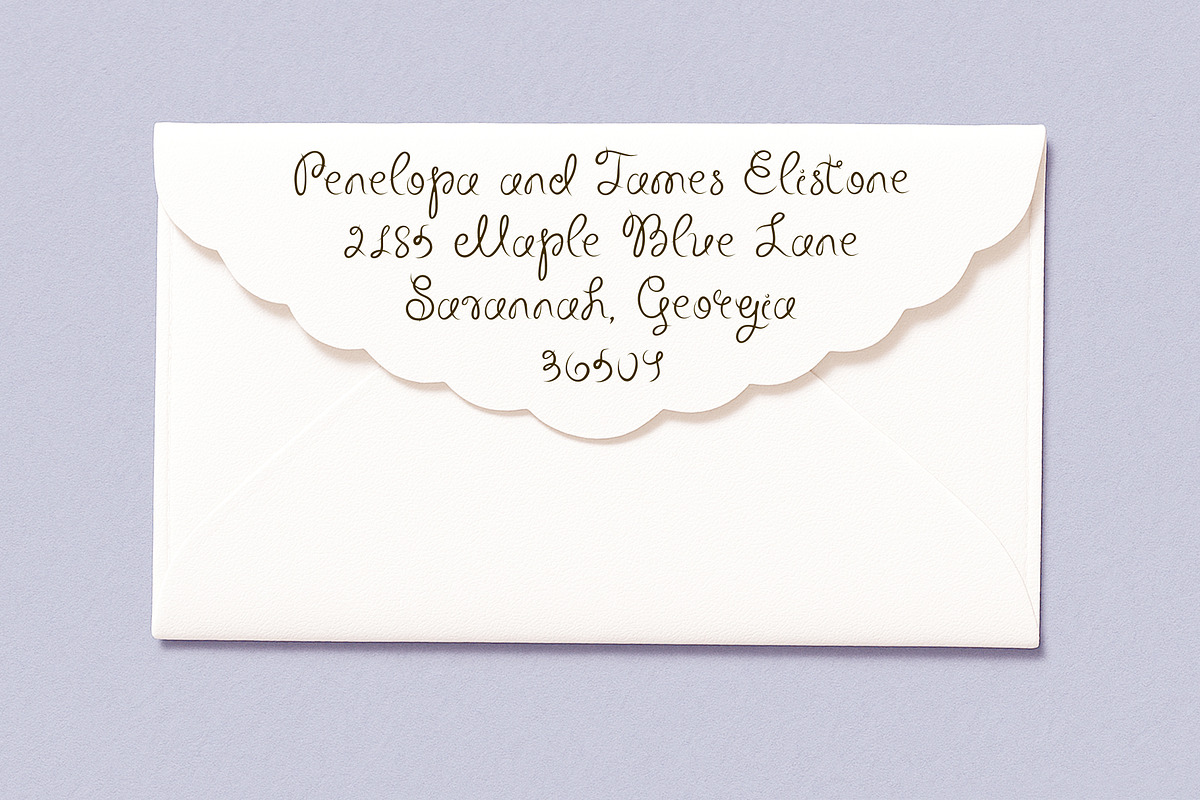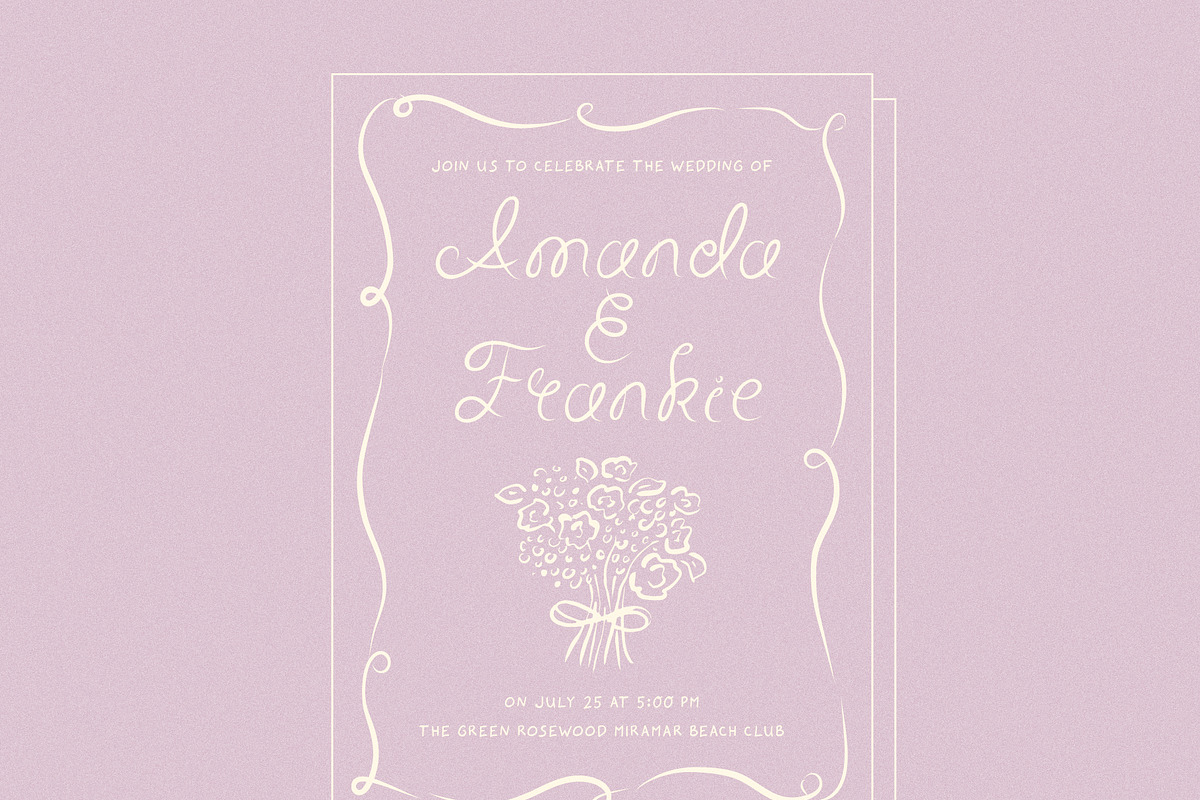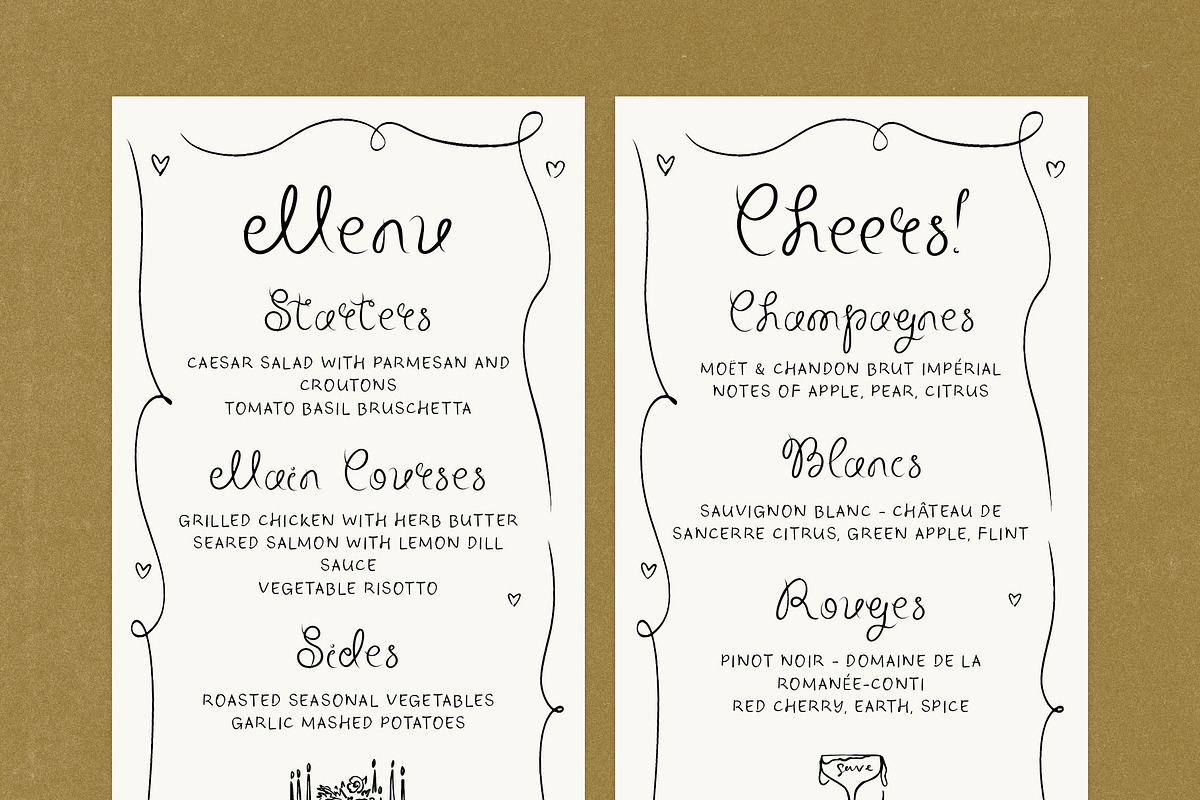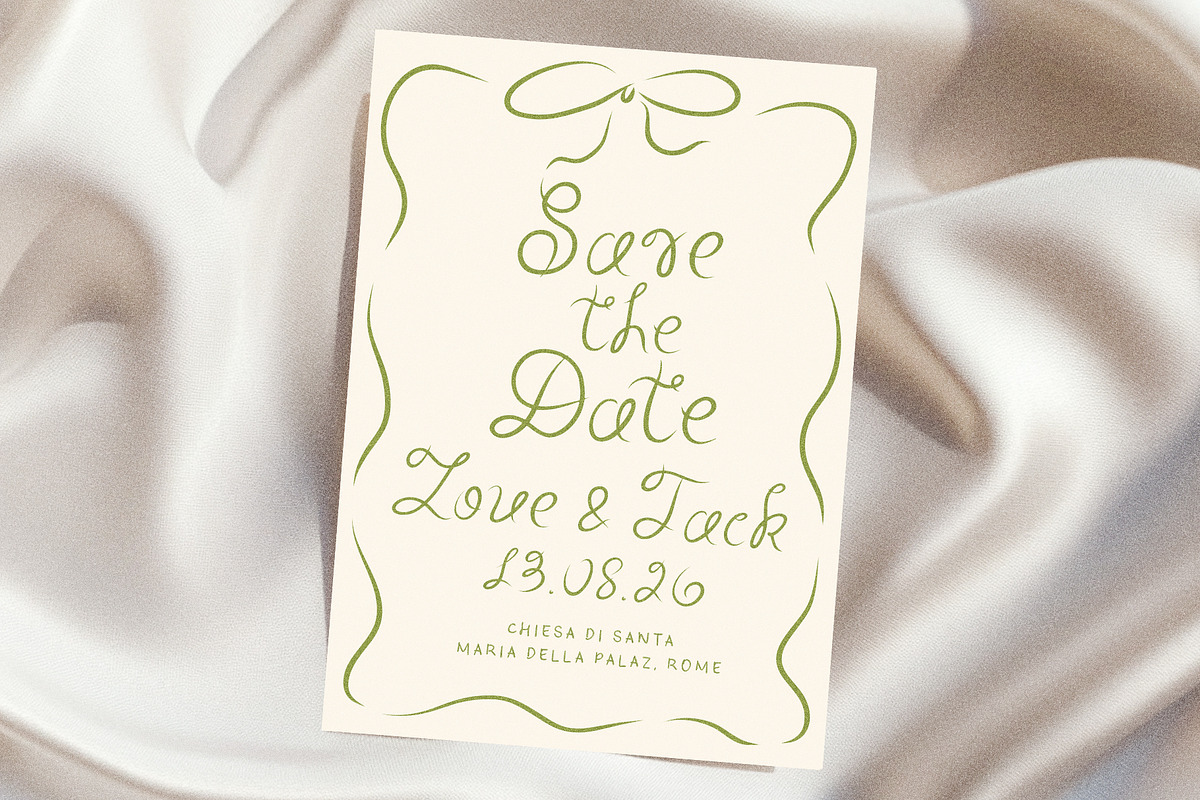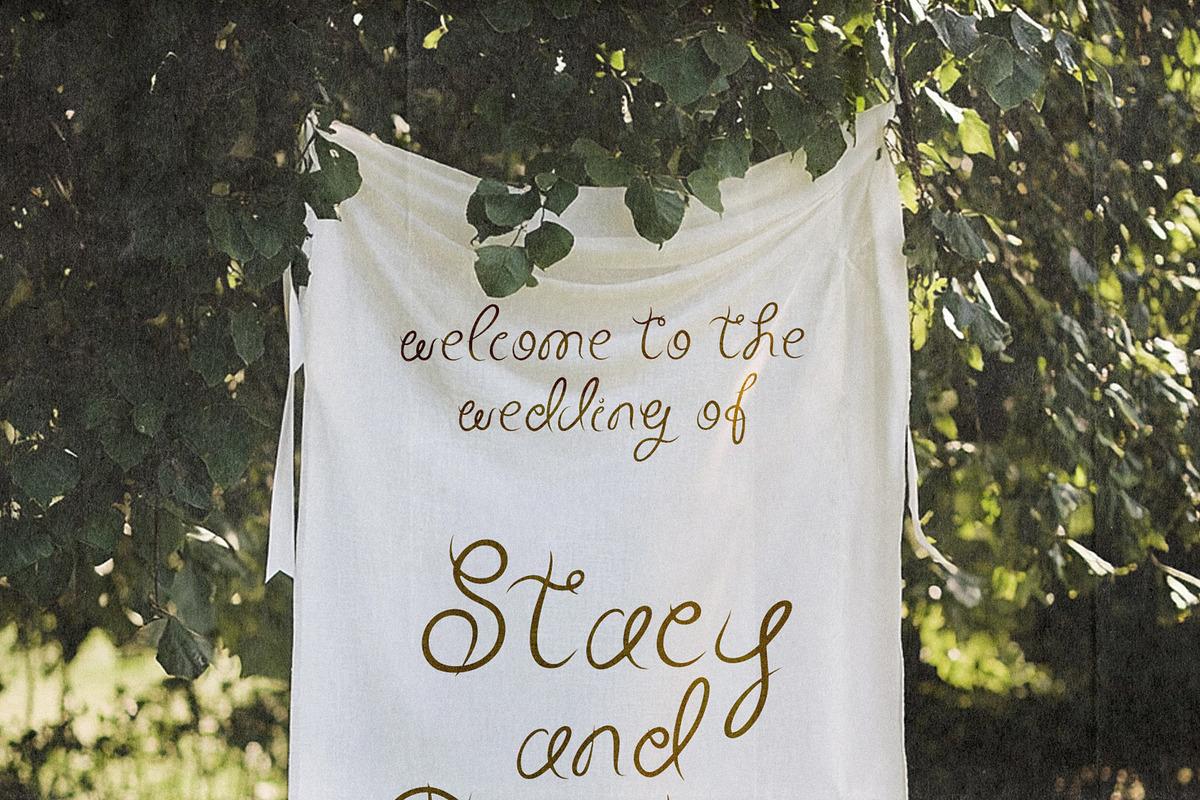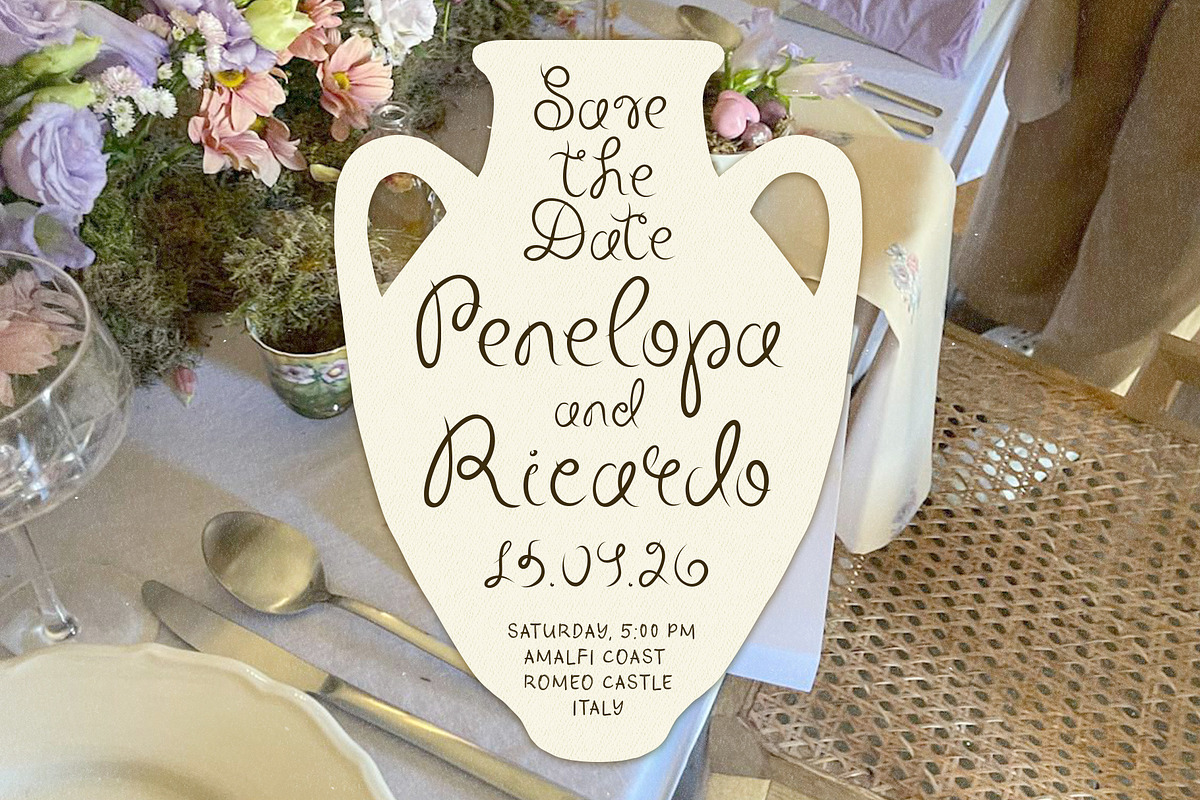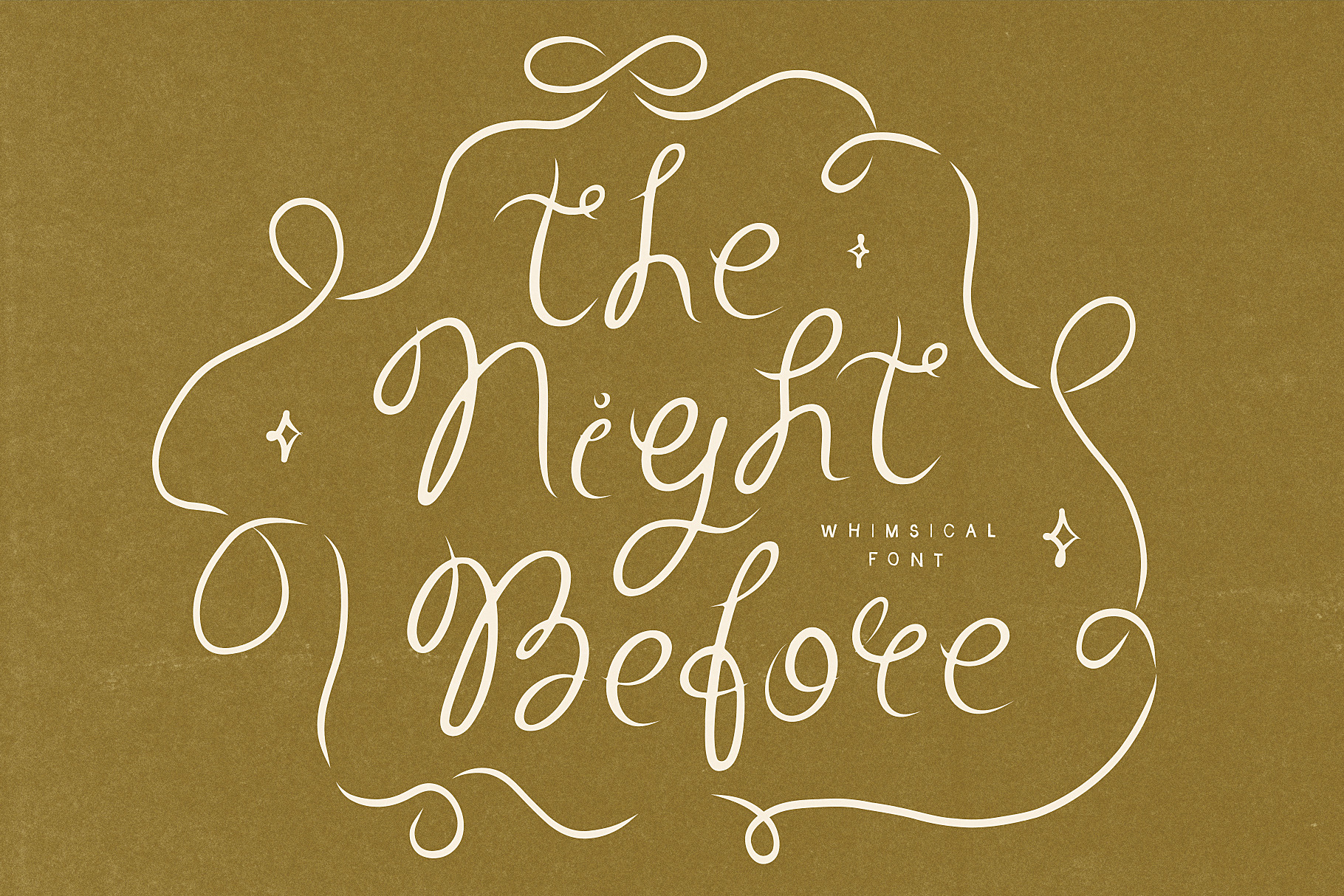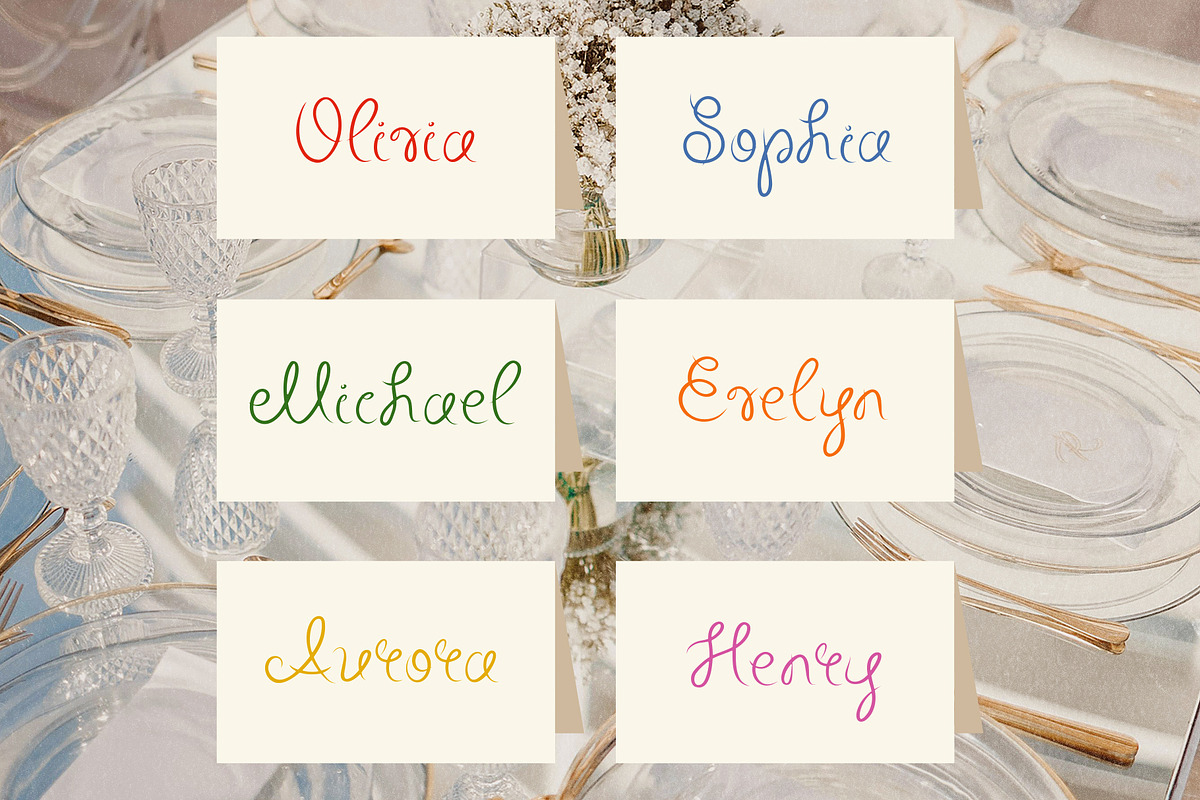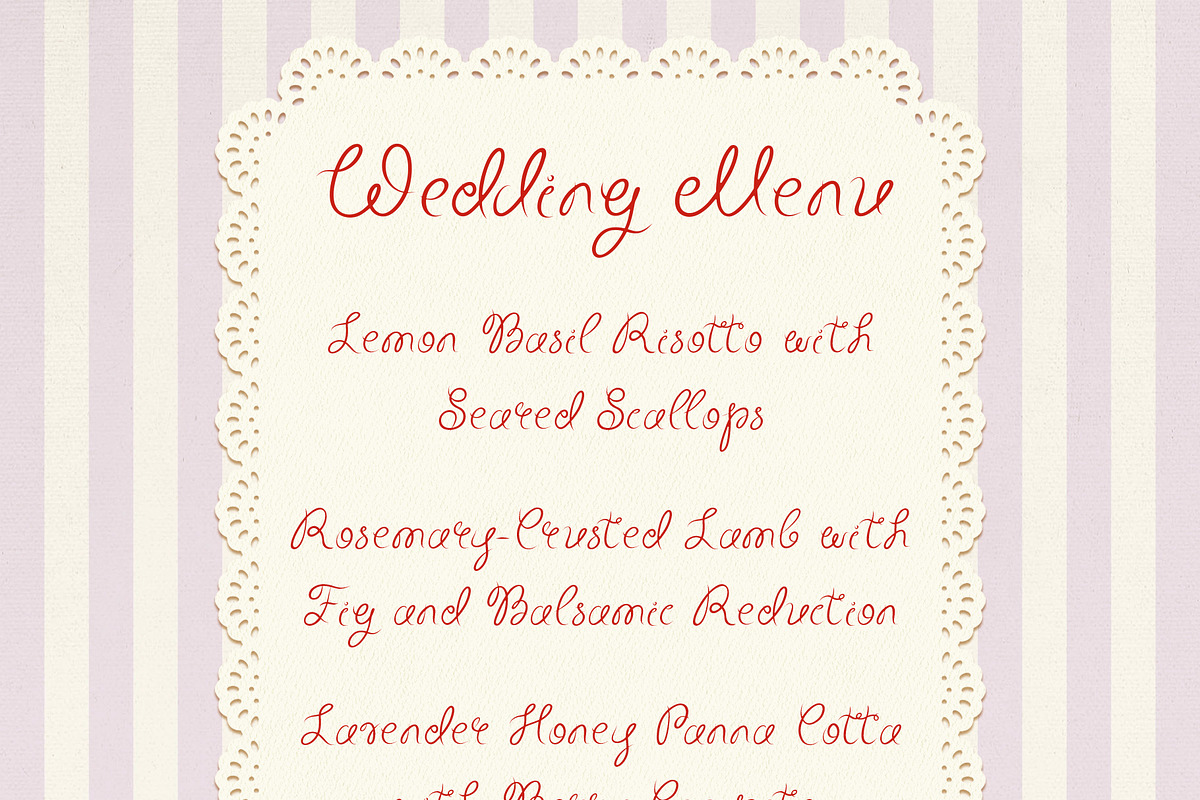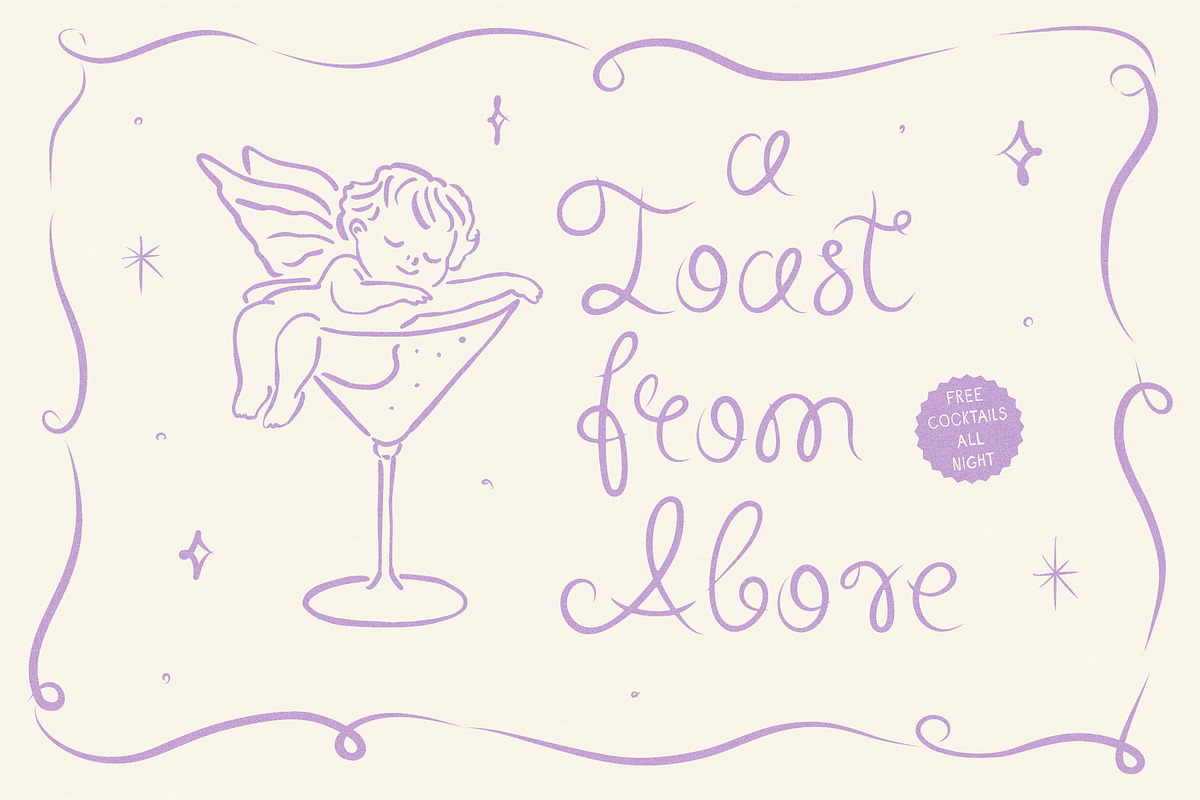
Curly Whimsical Wedding Font
Introducing The Night Before font, a one of a kind hand-drawn font that adds a playful yet romantic touch to your wedding stationery. With its curly, whimsical letters and charming tails, this font brings a quirky elegance to your invitations, save the dates, menus, and more! Perfect for bespoke weddings or any celebration that deserves a unique flair, The Night Before font is designed to make your special moments even more unforgettable.